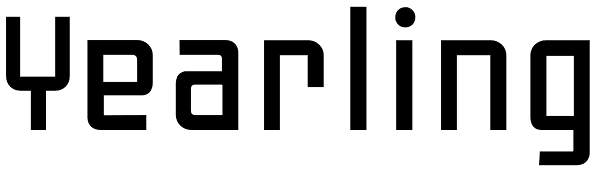
Yearling
The Yearling fonts are inspired by old propaganda poster letter forms of the 20th century. However, they're also intended to work well in modern communications as well. Yearling was originally created to look good via fax (LOL!), and because it's...